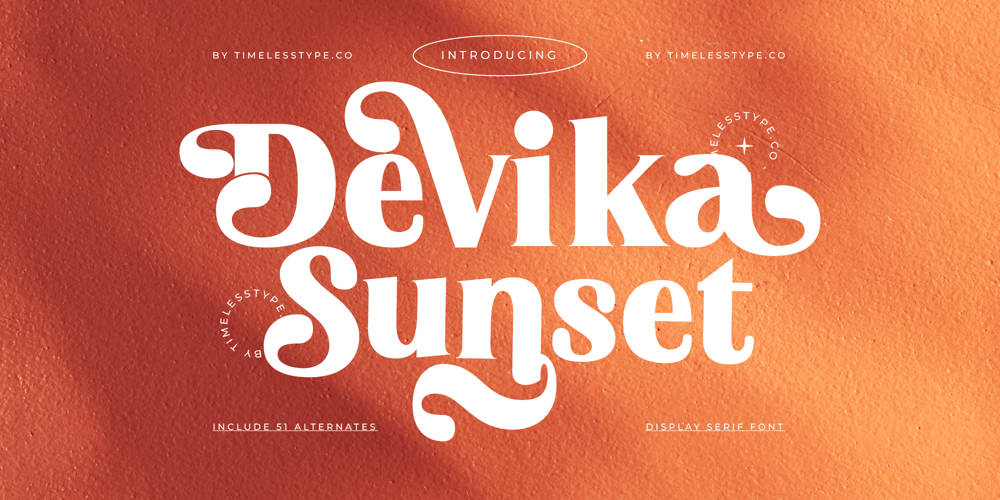
Devika Sunset
Devika Sunset font
Devika Sunset Font Family was designed by Heru Utama Putra and published by Timelesstype Studio. Devika Sunset contains 2 styles and family package options. Devika Sunset – Display Serif Font , from Timelesstype., Suitable for any projects such as: logos, branding projects, homeware designs, product packaging, mugs, quotes, posters, shopping bags, t-shirts, book covers, name card, invitation cards, greeting cards, label, photography, watermark, special events, and all your other luxury and beautiful projects that need a Luxury Serif taste.